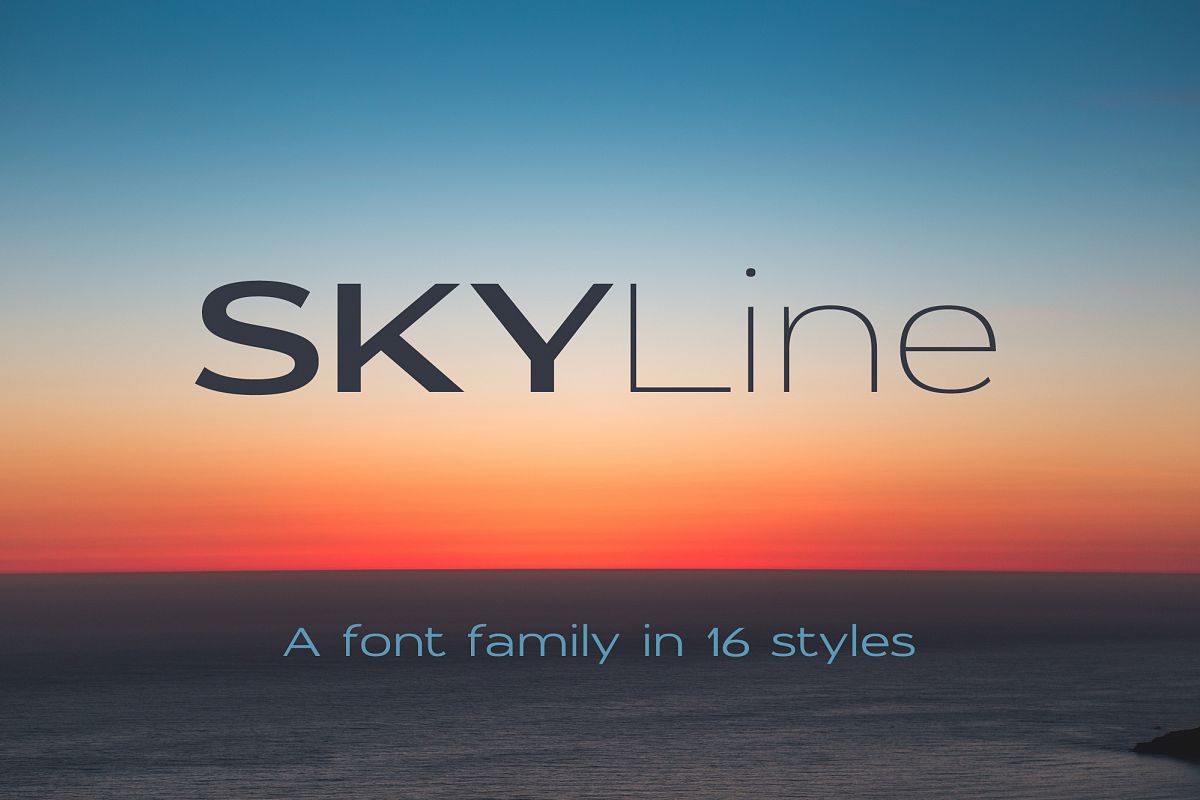
Skyline
Skyline is an extended sans-serif font with moderate contrast between thicks and thins, big x-height, short ascenders and descenders and relatively small capitals.
The whole look of Skyline is more horizontal and creates less interaction between the text lines and the surrounding space. It is slowly readable thus becoming more significant and memorable. The extended characters together with the open apertures make the font legible even at an angle and at a distance. The sharp edges of the strokes and the moderate contrast between thicks and thins create a more thrilling look and overall feeling.
Skyline could be used for various types of projects like packaging, cards, brochures, branding, billboards, etc. It works well with any scripts.